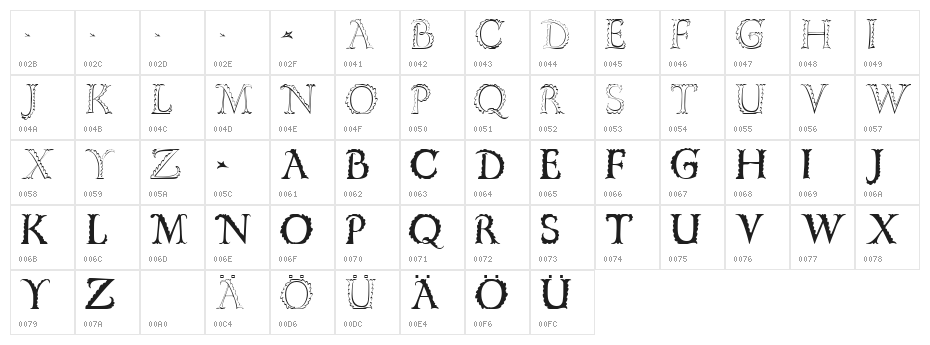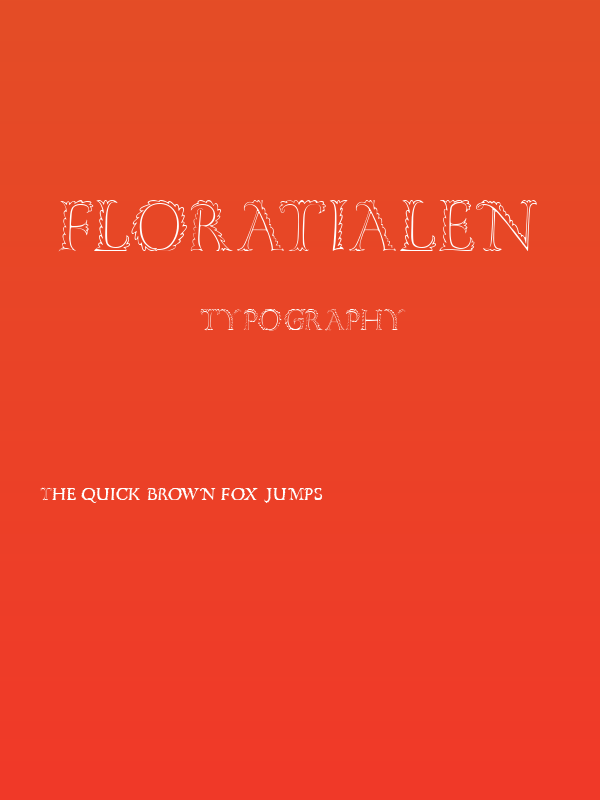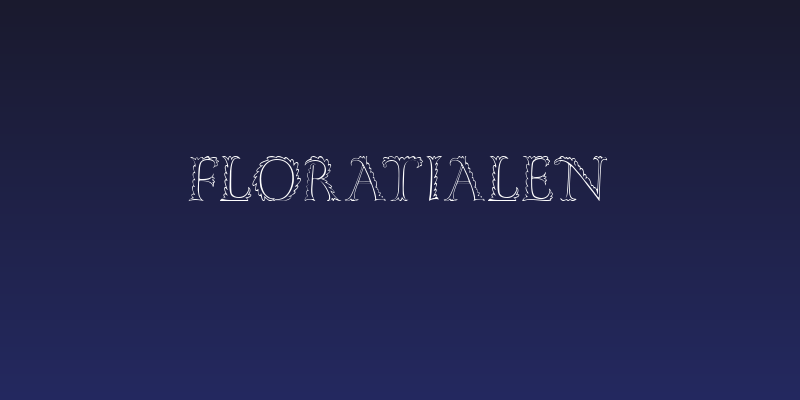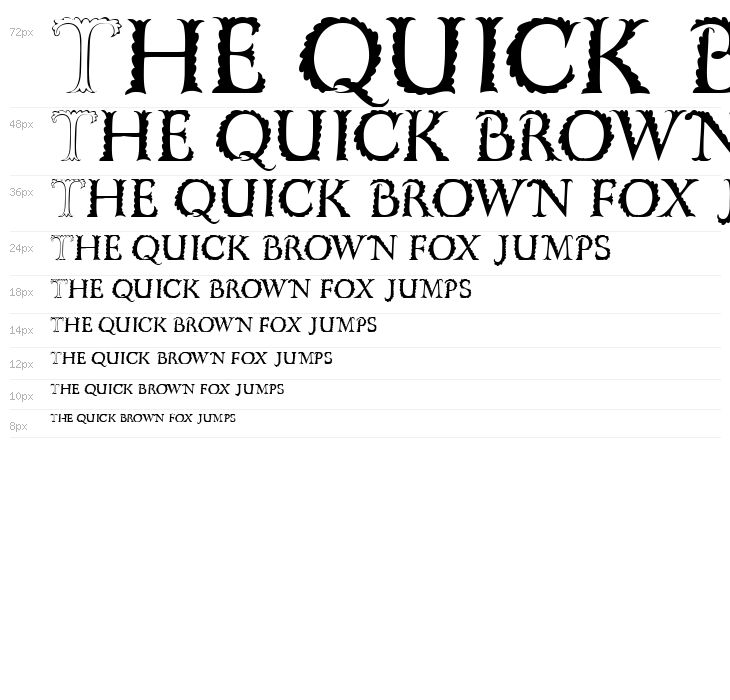
FloRaTialen Font
| Progetti proposti | Ideal for fantasy-themed designs, book covers, posters, and branding that requires a dramatic and artistic touch. |